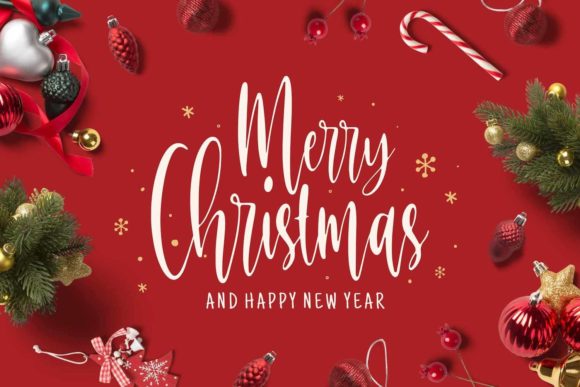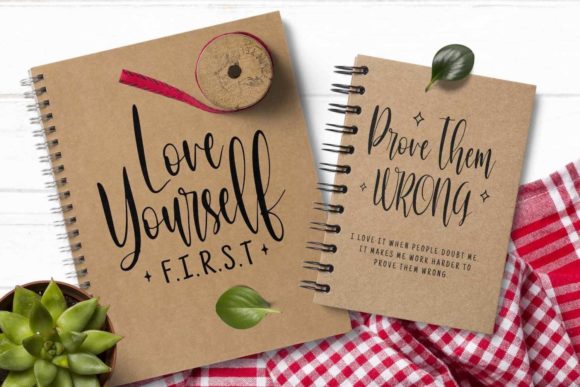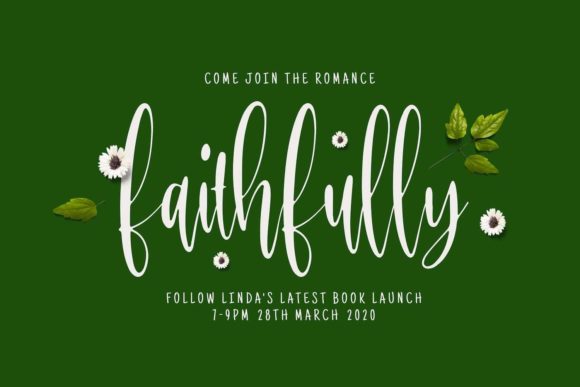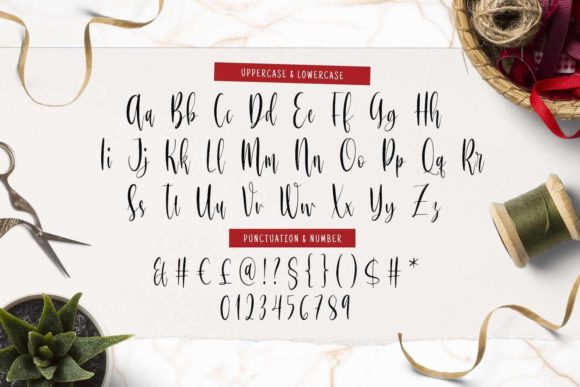
Introduction to Pramboyst Font
Pramboyst is a casual and delicate script font.
Warm, romantic and jolly, this font will turn each of your project ideas into real works of art Have fun with this beautiful font and explore its endless variations.
Key Features of Pramboyst Font